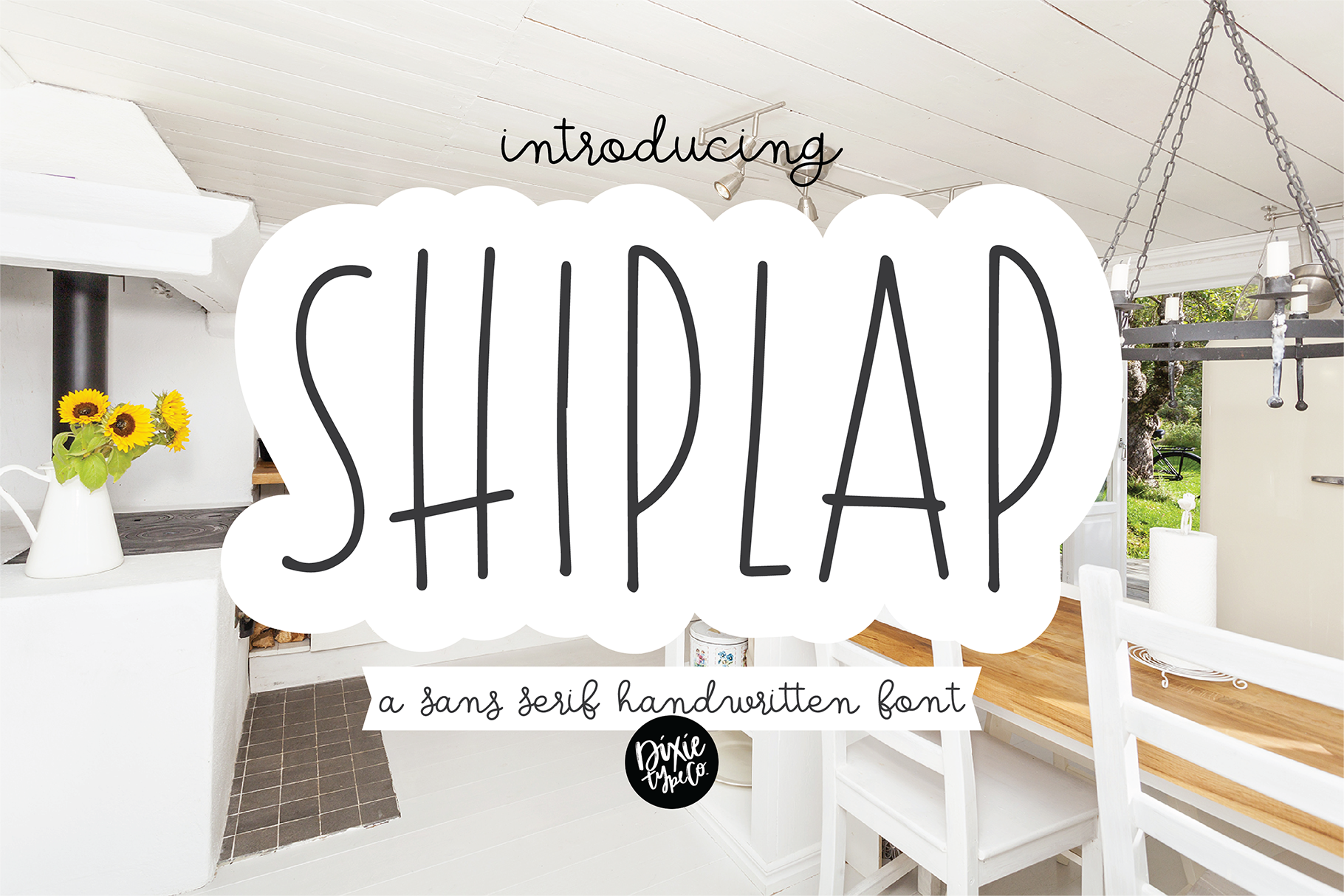
SHIPLAP Sans Serif Handwritten Font
"Shiplap" Hand-lettered farmhouse font. Perfect for signs! This is an all-caps font.
{ A typographic font hand-lettered with love by Dixie Type Co. }
Shiplap is a tall sans serif lettered font that will compliment any script font. This works great in projects that use lots of text. It was made with rustic farmhouse signs in mind. Check out our other farmhouse style fonts that pair perfectly with this one!